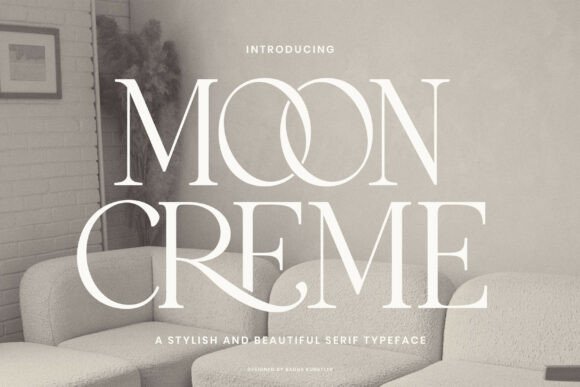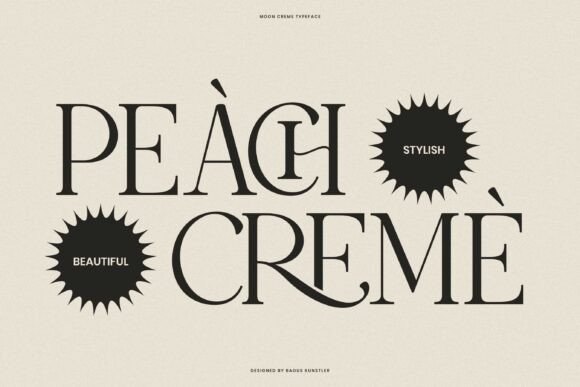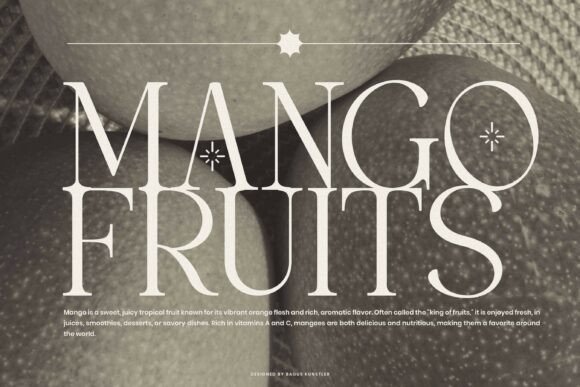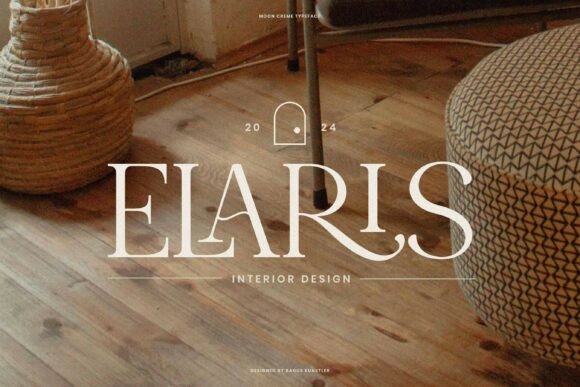
Moon Creme Font: An Elegant Serif for Modern Branding & Logo Design
About the Moon Creme Font
Crafted with precision, the Moon Creme Font is ready to bring your ideas to life. MOON CREME is a beautifully crafted serif font that effortlessly combines timeless elegance with a vintage soul and a modern edge. Designed with attention to detail, each character in this typeface carries a refined aesthetic, making it an ideal choice for designers who want to convey sophistication, class, and a touch of nostalgia.
Moon Creme’s elegant yet slightly quirky personality makes it perfect for branding projects requiring a touch of vintage sophistication, particularly logos, short headlines, and packaging design for premium products. It works exceptionally well in invitations, posters, or short-form marketing materials where readability at larger sizes is key. However, its delicate serifs and relatively high x-height make it less suitable for extended body text or UI elements requiring high legibility at smaller sizes.
Pairing Moon Creme with a clean sans-serif like Montserrat or a geometric sans-serif like Futura would create a strong visual contrast, balancing its vintage charm with modern clarity. For a more playful approach, a handwritten script font could complement its elegant curves. Conversely, pairing it with a sturdy serif like Playfair Display would enhance its classic feel.
Its overall aesthetic projects a feeling of refined nostalgia, suggesting quality and timeless appeal. Brands focusing on artisanal goods, vintage fashion, or high-end cosmetics would find Moon Creme an excellent choice to communicate their brand values effectively.
Moon Creme Font Usage Examples
Moon Creme Font Example